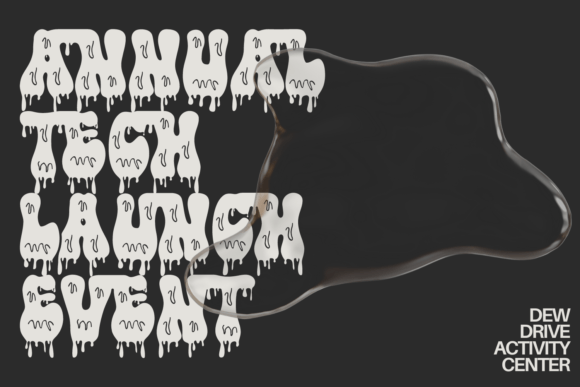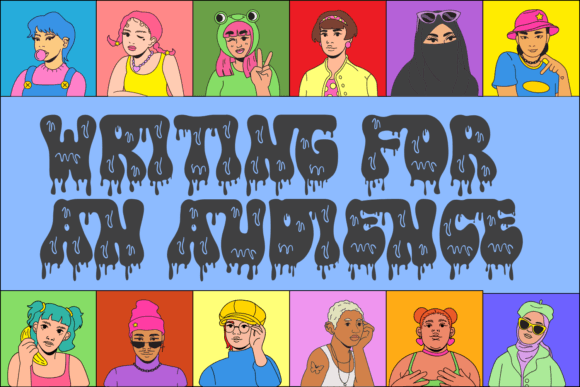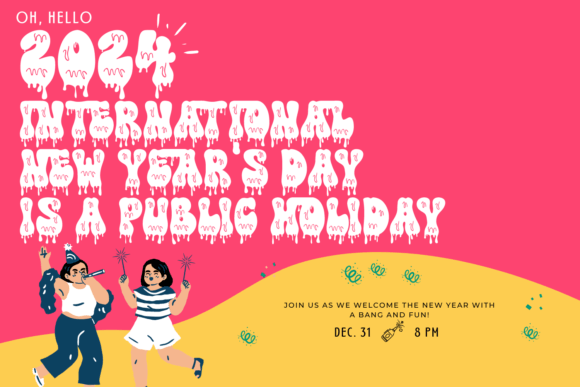
Rainbow Dripping Font
Rainbow Dripping Font is a bold and incredibly unique display font. Are you looking for the best mud, slime, dripping, and melting fonts for your design? This is the answer! This font is created with freehand digital drawing and created very detail, best for your vintage-looking horror poster it is also good for your design elements as well. It can easily be matched to an incredibly large set of projects, so add it to your creative ideas and notice how it makes them stand out!This font is PUA encoded which means you can access all of the amazing glyphs and ligatures with ease!